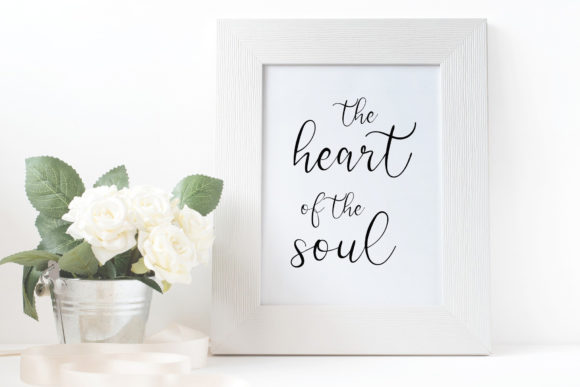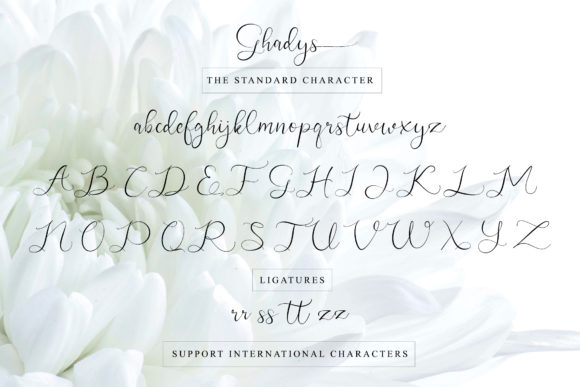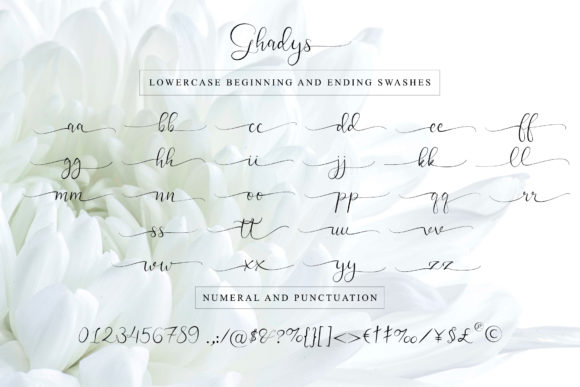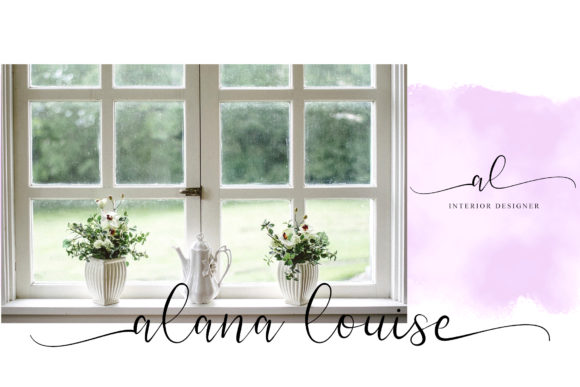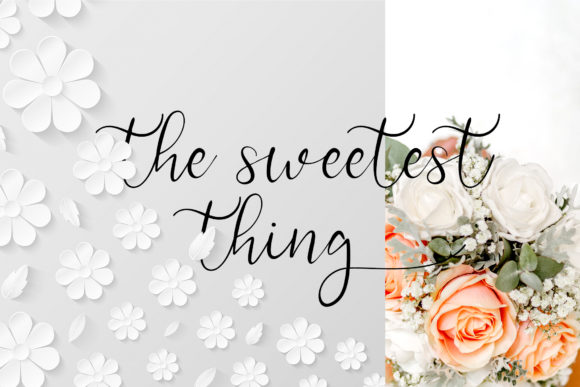
About Ghadys Font
Ghadys is a classic calligraphy typefaces, with a smooth line, clean, dancing baseline, classic and elegant touch. Can be used for various purposes such as headings, signature, logos, wedding invitation, t-shirt, letterhead, signage, lable, news, posters, badges and more.This font is PUA encoded which means you can access all of the glyphs and swashes with ease!